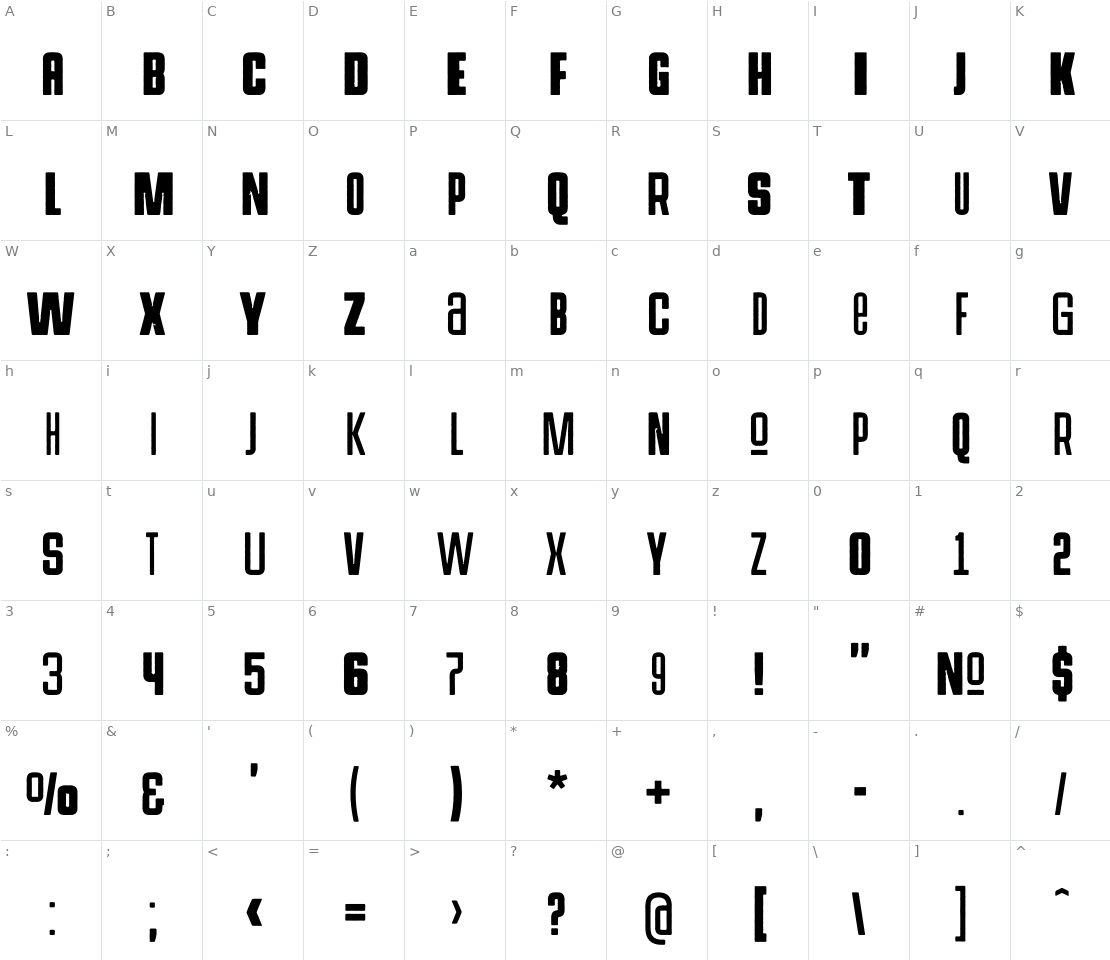
Hermanoalto Unicase
Hermanoalto Unicase is a condensed, bold display face by Levi Szekeres that blends uppercase and lowercase letterforms into a single height, giving it that distinctive unicase rhythm where familiar characters sit at unexpected proportions. The narrow geometric build keeps things tight and punchy, with enough weight to hold its own on posters, headlines, and large-format displays. It has an architectural quality to it, structured and deliberate, with real visual interest coming from the mix of letter shapes rather than any decorative flourish.